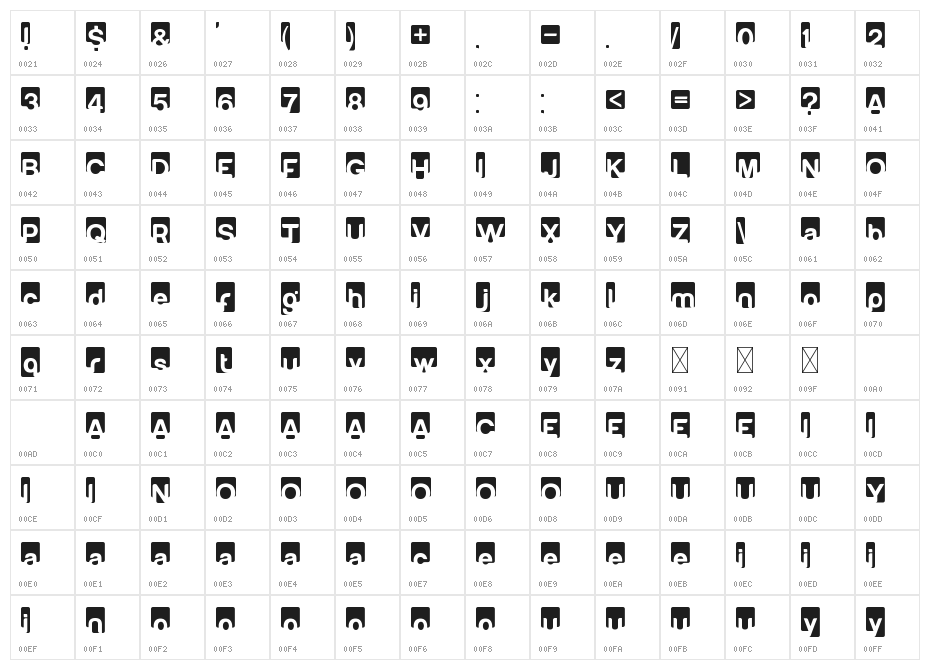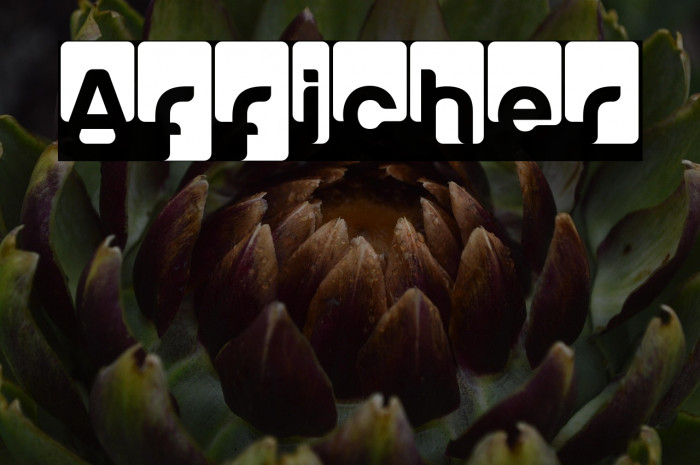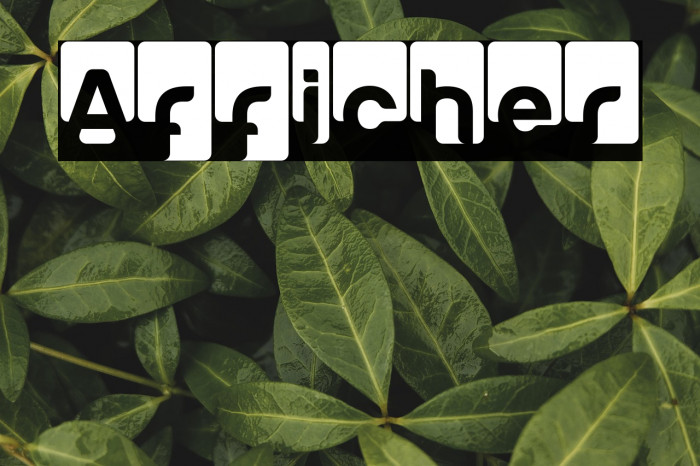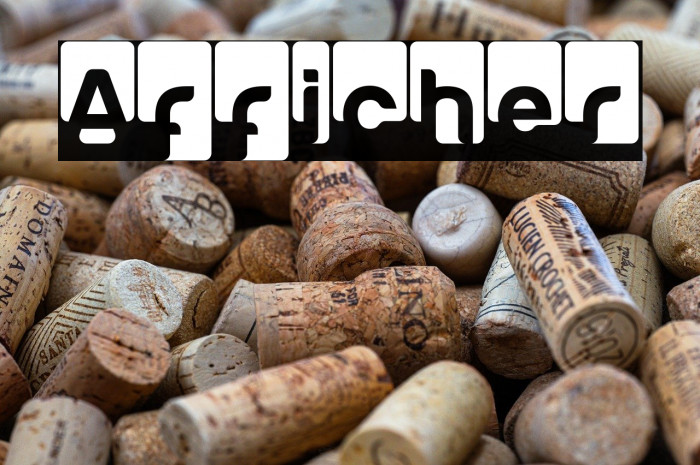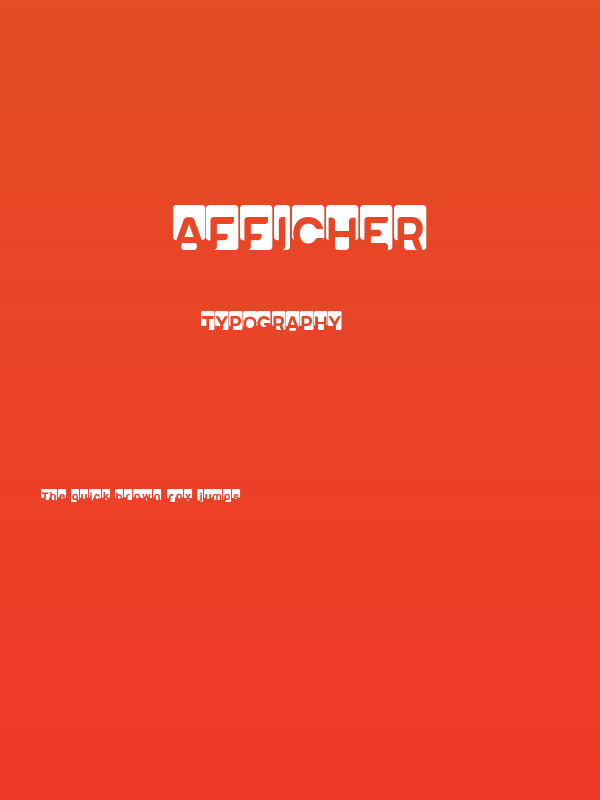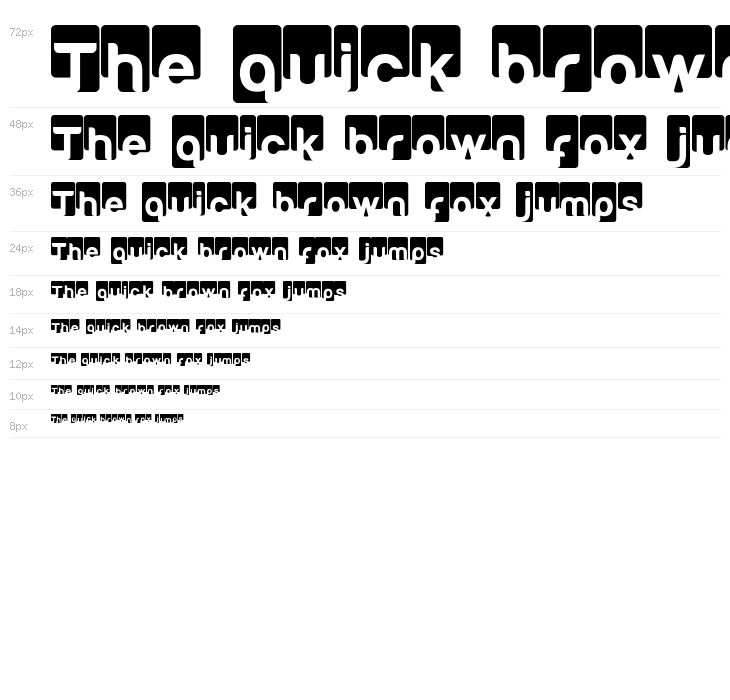
Afficher Font
Afficher Description
This font features a bold and striking design with a unique blocky appearance. Each character is encased in a solid rectangular shape, creating a high contrast between the letterforms and their background. The uppercase and lowercase letters maintain a consistent width, contributing to a uniform and cohesive look. The numbers and special characters follow the same design principles, ensuring a seamless integration across all elements. The font's style is distinctly modern and decorative, making it ideal for projects that require a strong visual impact.
| Proposed Projects | Ideal for posters, logos, and headlines where a strong visual impact is desired. |